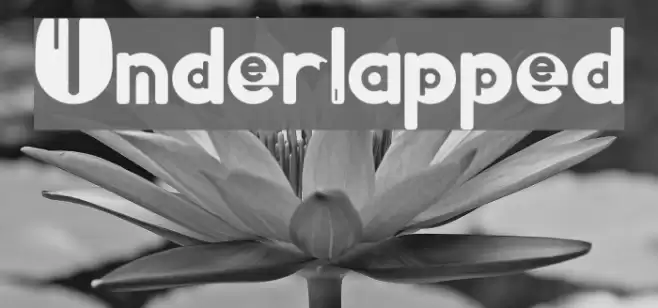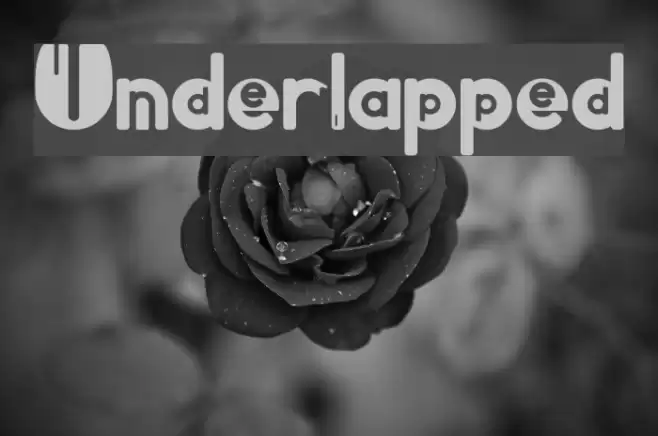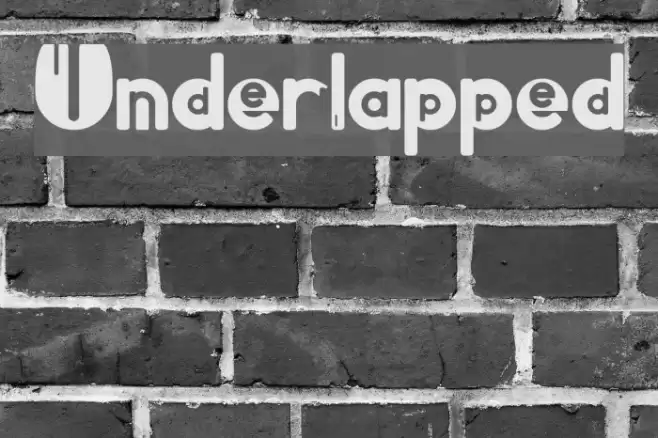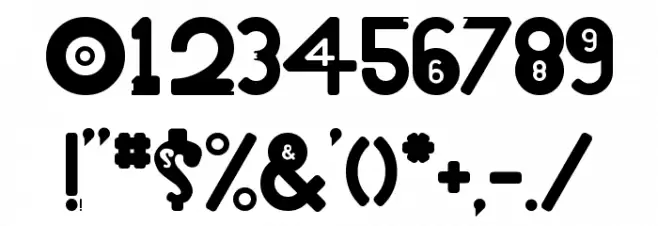
Underlapped Font
Underlapped Description
This font features a playful and bold design with a unique overlapping style that creates a sense of depth and movement. The uppercase letters are particularly striking, with some characters having additional elements that enhance their visual impact. The lowercase letters maintain a consistent style, offering a quirky and modern look. Numbers and special characters follow the same design principles, ensuring a cohesive appearance across all text. The font's distinctive style makes it ideal for creative projects that require a bold and eye-catching typeface.
A bold, playful font with overlapping elements and a modern, quirky style from Uncategorized fonts.
- Proposed Projects: Ideal for posters, branding, children's books, and creative advertising campaigns.